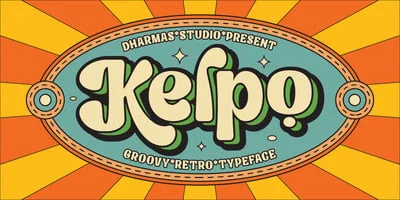
Kelpo Font
Kelpo Font is ideal for friendly design applications including organic food branding, sustainable product packaging, eco-friendly marketing materials, community organization logos, wellness center signage, natural health publications, environmental campaigns, and wholesome lifestyle brands. This approachable typeface brings natural warmth and organic authenticity to projects that celebrate sustainability and healthy living.
What makes Kelpo Font exciting is its perfect representation of natural harmony and organic wellness through letterforms that embody the gentle strength found in nature's sustainable systems. The font features rounded characteristics with earthy appeal and organic flow that instantly communicates health, sustainability, and environmental consciousness. Its natural character appeals to audiences who value ecological responsibility, organic living, and sustainable choices.
The Kelpo Font family includes various earth-inspired styles such as Light, Regular, Medium, Bold, and natural alternates that enhance the organic aesthetic. These wholesome options provide comprehensive design solutions for creating authentic eco-friendly brand identities that celebrate sustainable living and environmental stewardship.
This distinctive eco-friendly typeface brings genuine natural authenticity to contemporary design projects. Sustainable brands and environmental organizations choose Kelpo Font for its exceptional ability to communicate organic values and environmental responsibility. The font's natural inspiration makes it perfect for organic food companies, eco-friendly retailers, and wellness brands that want to convey authentic commitment to sustainability and natural living. Its wholesome character ensures memorable brand recognition while maintaining the authentic aesthetic that defines exceptional eco-focused design work.